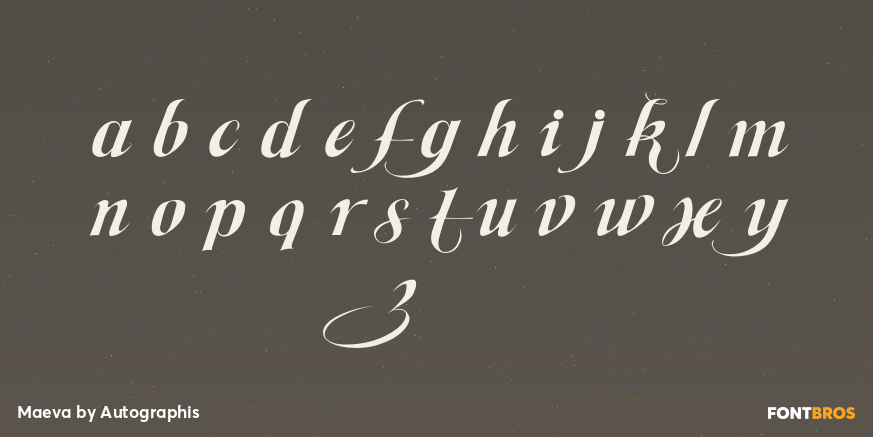
Maeva
Font Family by Autographis
Maeva is a non-joining wide formal 60s script, directly designed and carefully finished by hand on screen, trying to keep the script alive ? preventing it from looking mechanical ? by drawing each letter from scratch.